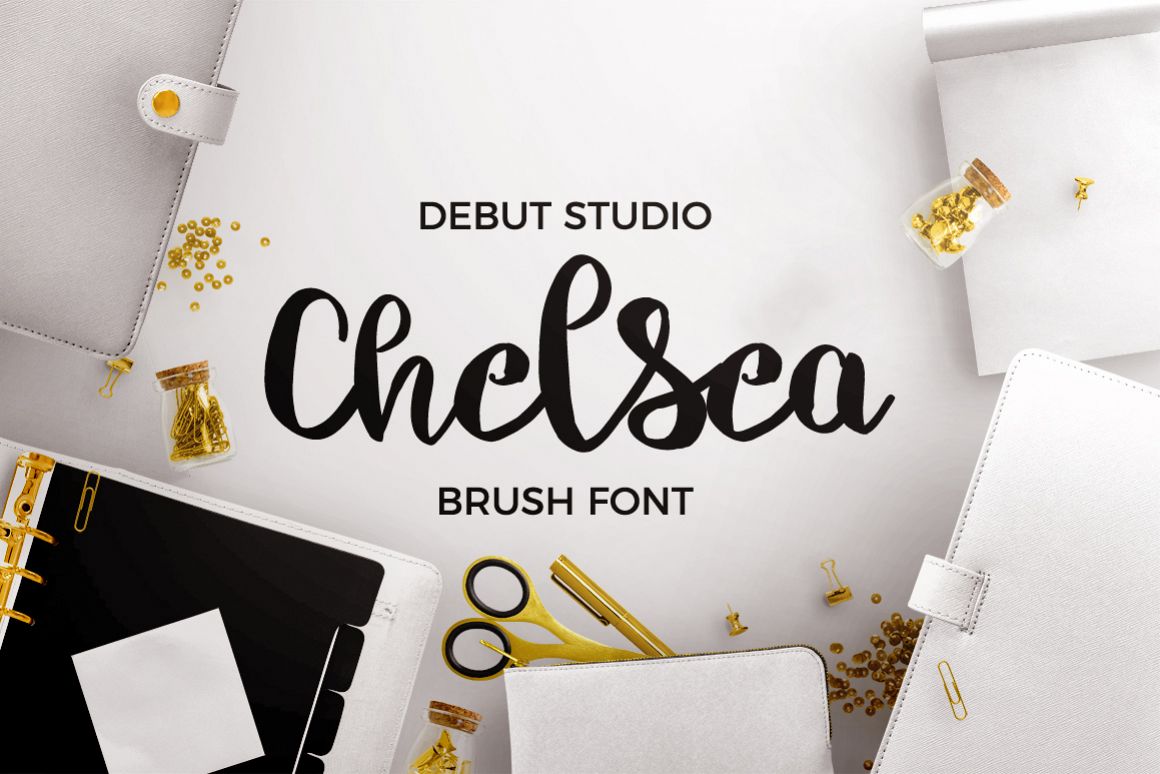
Chelsea Font Duo - Brush & Script
Chelsea Brush Script
Introducing Chelsea Font Duo
This font inspired from hand-drawn lettering style, suitable for your awesome works like Poster, Logo, T-Shirt Design, Advertisement, Quote Display, Wedding Invitation etc